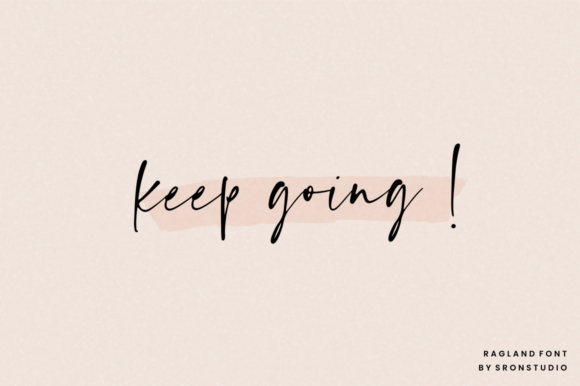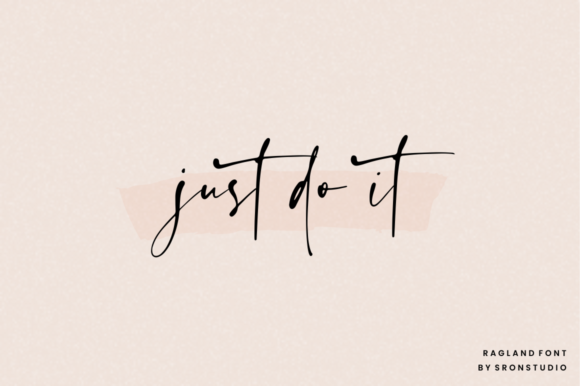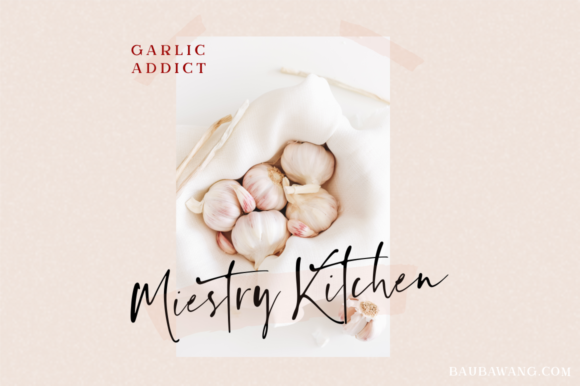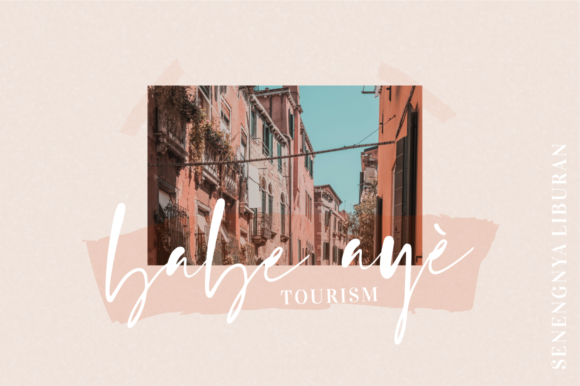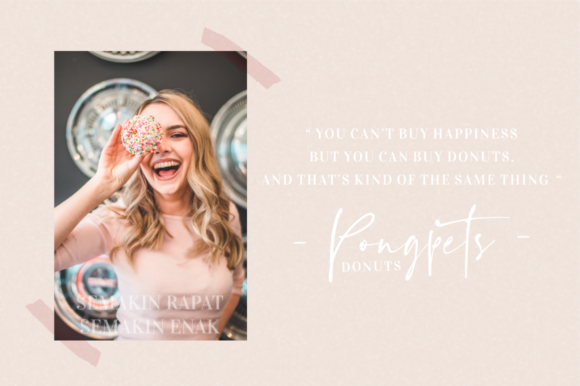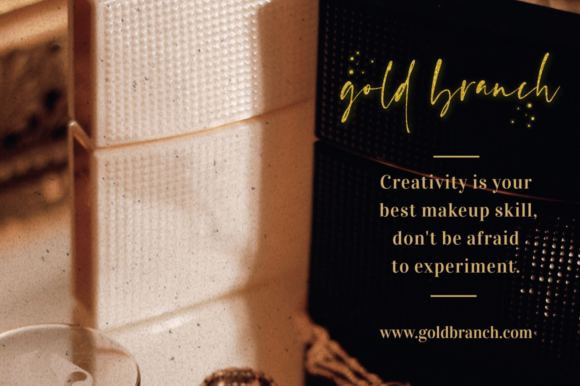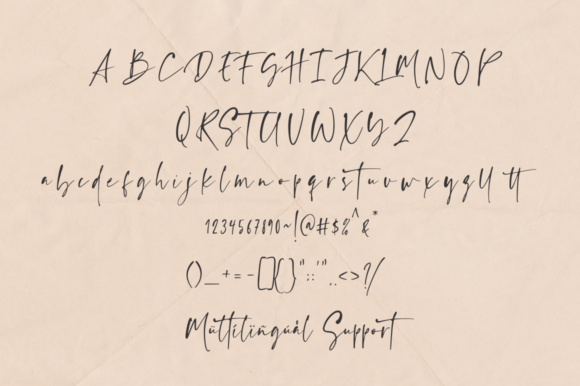
HomeScript FontsRagland Font Script Fonts Ragland Font FacebookXPinterestWhatsApp Ragland Font Poster 2 Ragland Font Poster 3 Ragland Font Poster 4 Ragland Font Poster 5 Ragland Font Poster 6 Ragland Font Poster 7 Ragland Font Poster 8 About Ragland Font Ragland is a natural handwritten font with an organic feel. Get inspired by its casually smart feel! DOWNLOAD ON CREATIVE FABRICAThis font is sold and delivered by Creative Fabrica. Font Canyon may earn a commission if you buy through this link. People also explored Cute Bubbles Font MultiType Lines Display Wide Bold 2 Font Autumn Farmhouse Font Neutral Font Souls Wyld Font Trio Font Kids Black Bella Canvas 3001B Tee Mockup Sweet Pasteloe Font Antonega Font Marwinto Font 348 0 TagsRagland Font Previous articleRosalinda Trio FontNext articleSellicite Font LEAVE A REPLY Cancel reply Comment: Please enter your comment! Name:* Please enter your name here Email:* You have entered an incorrect email address! Please enter your email address here Website: Save my name, email, and website in this browser for the next time I comment. Personal Use Free Recharge Bold Personal Use Free Read more about this font Coconote Personal Use Free Read more about this font Laneway Personal Use Free Read more about this font Market Love Personal Use Free Read more about this font BLOG How to Install and Use Fonts on Windows, macOS, and Web Projects How to Install and Use Fonts on Windows, macOS, and Web Projects Fonts are a crucial part of design and branding. Whether you’re designing a... Best Fonts for YouTube Videos: Make Your Thumbnails Stand Out 5 Fonts That Will Dominate Design Trends in 2026 Top 10 Handwritten Fonts That Elevate Your Designs